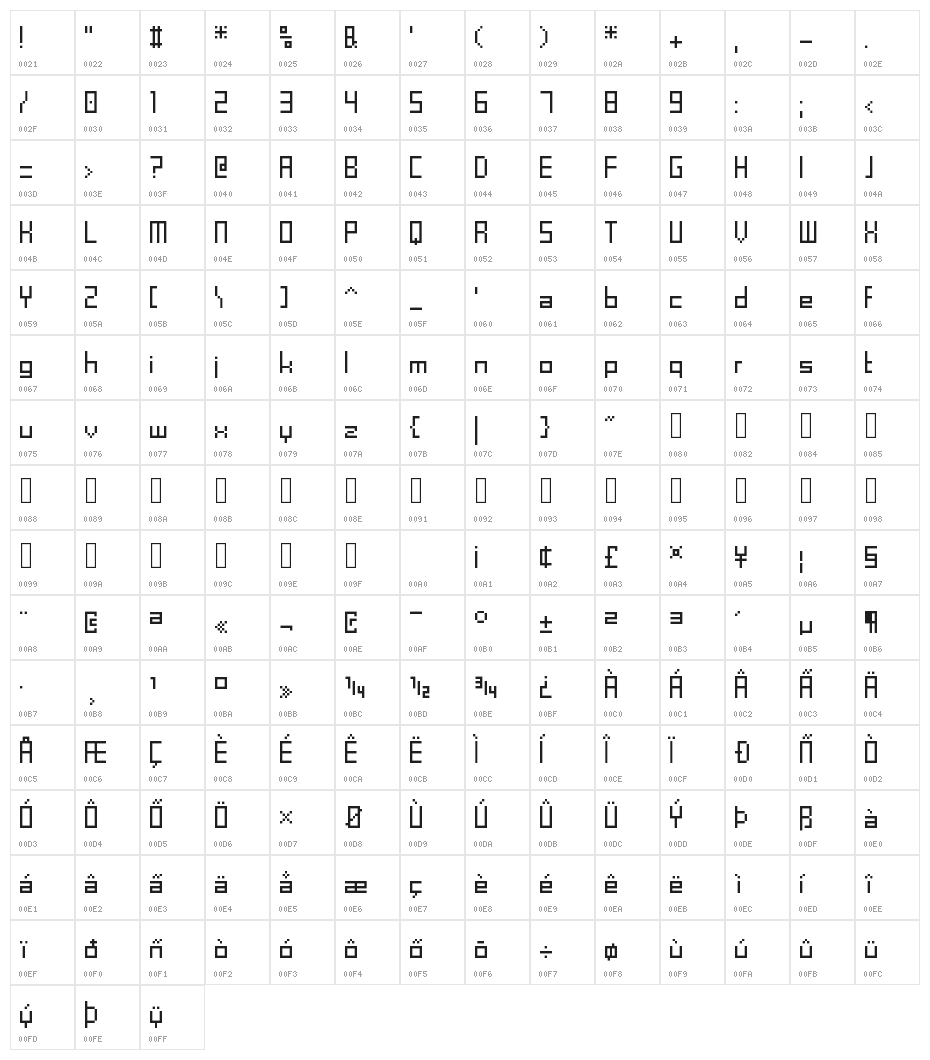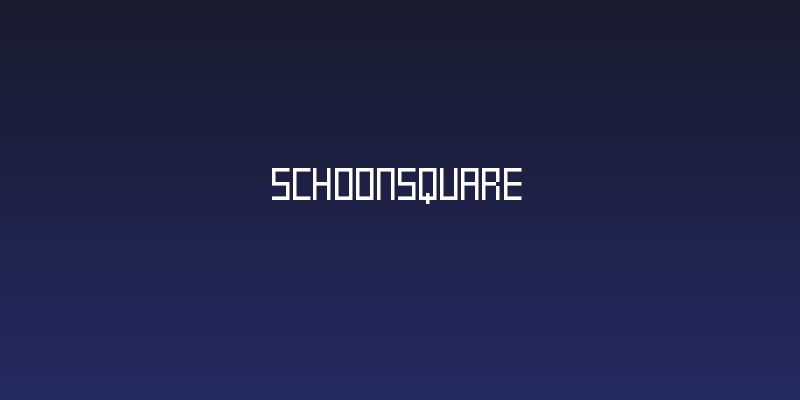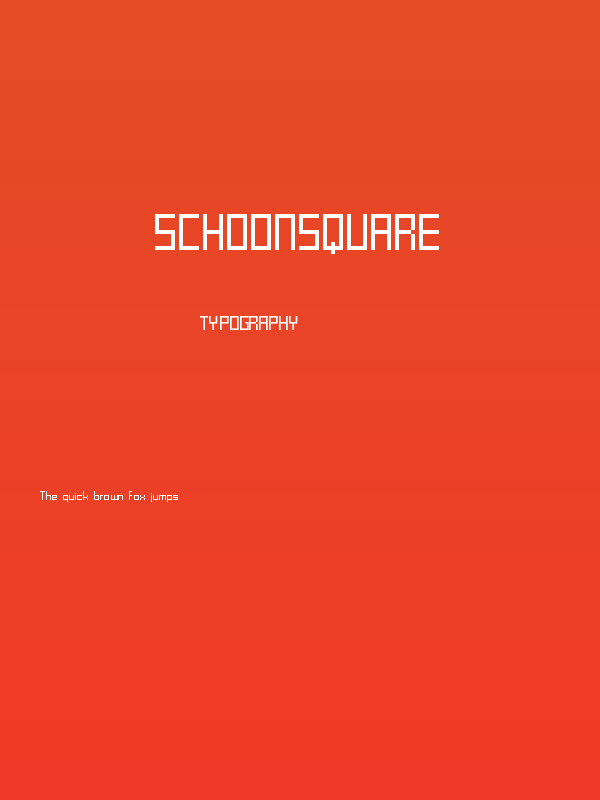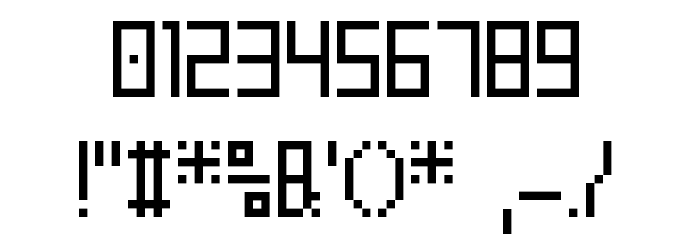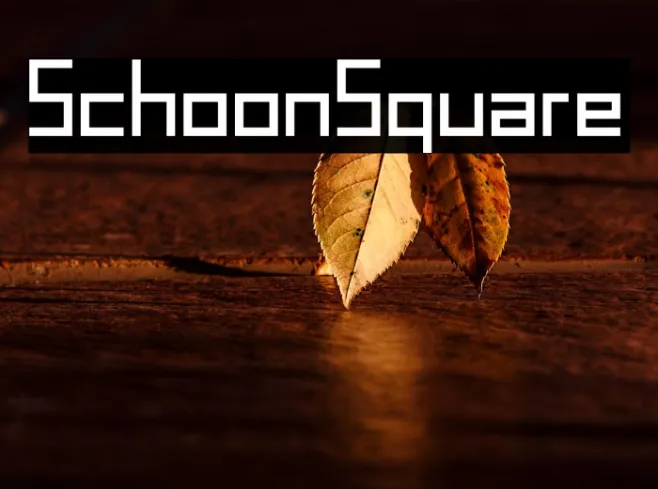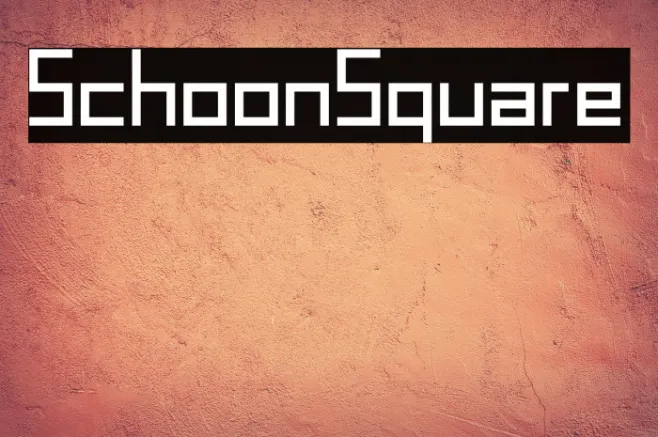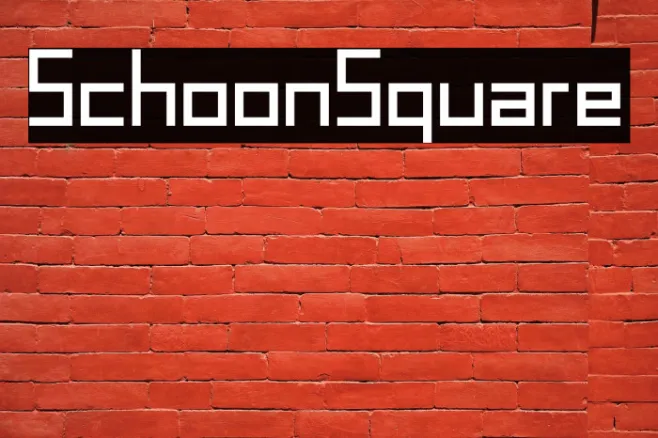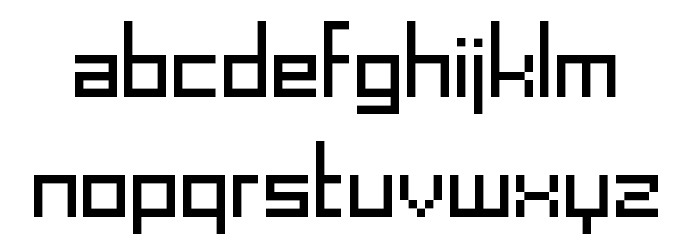
SchoonSquare Font
SchoonSquare Description
This font features a geometric, pixelated design with a distinctly digital aesthetic. Each character is composed of square blocks, creating a uniform and structured appearance. The uppercase and lowercase letters maintain a consistent height, contributing to a cohesive look. The numerals and special characters follow the same blocky style, ensuring visual harmony across all elements. This font's design is reminiscent of early digital displays and retro video games, offering a nostalgic yet modern feel.
| Overall Style | Modern, Retro |
| Use Case | Logos, Headlines, Digital displays |
| Proposed Projects | Ideal for digital art projects, retro-themed designs, video game graphics, and tech-related branding. |